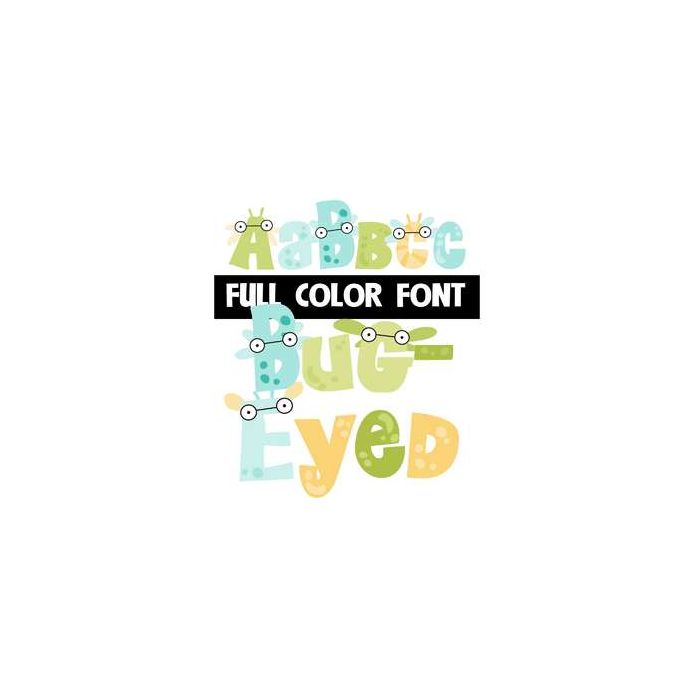
This adorable full-color font features "bug-eyes" on the uppercase and a lowercase without. Mix up both as you type for best results. This font works best for titles, displays, posters and more. Please note color fonts will show as black in non compatible programs. This font type is compatible with Silhouette Studio.